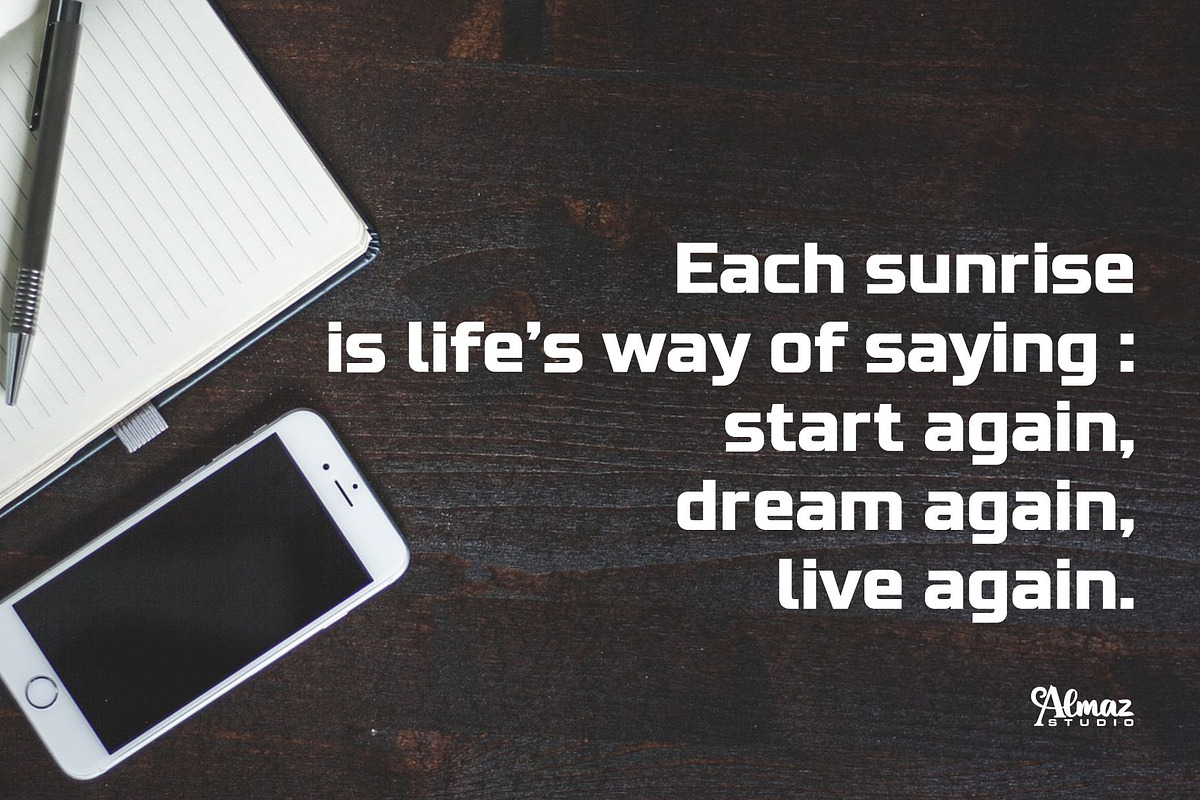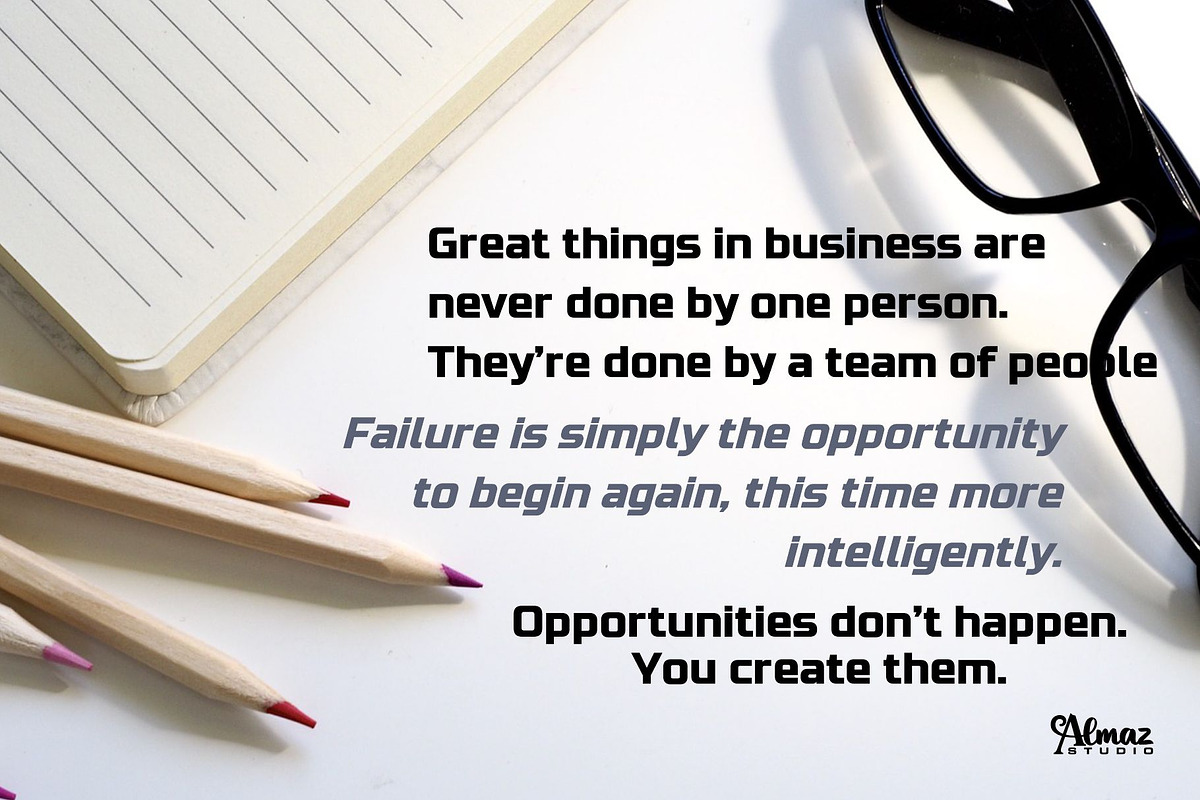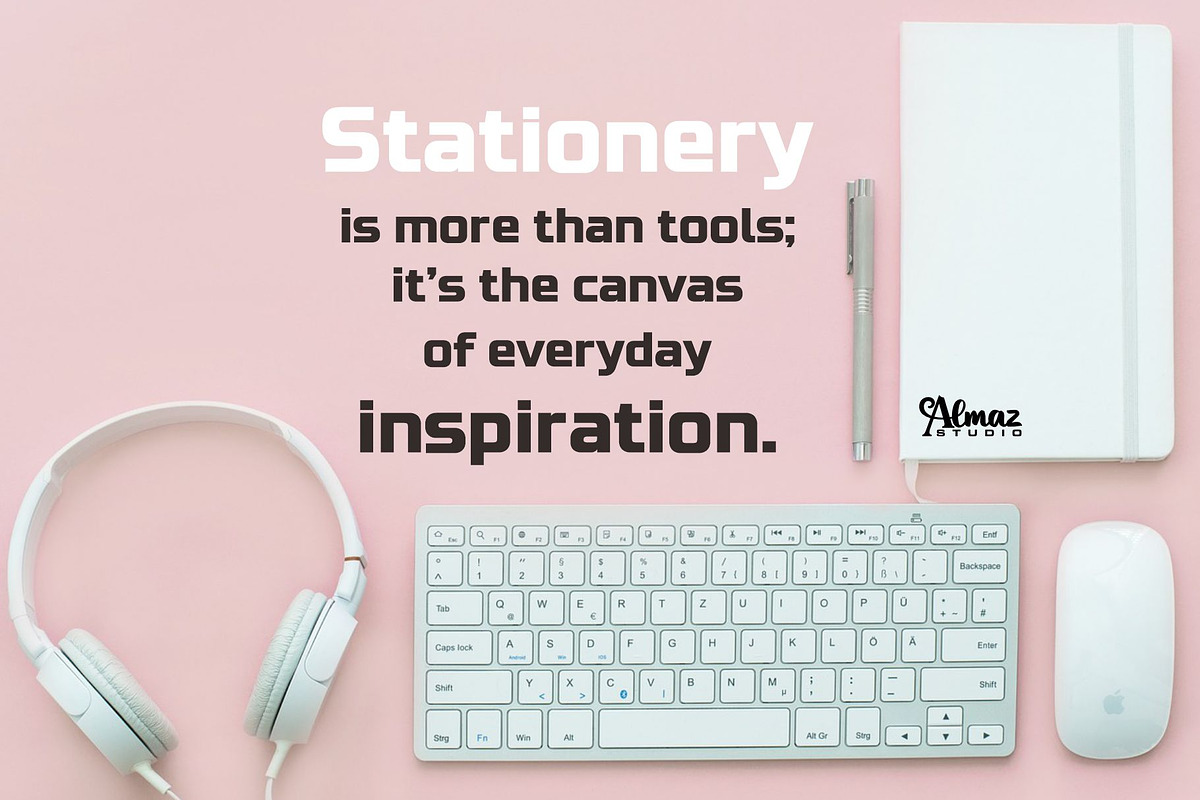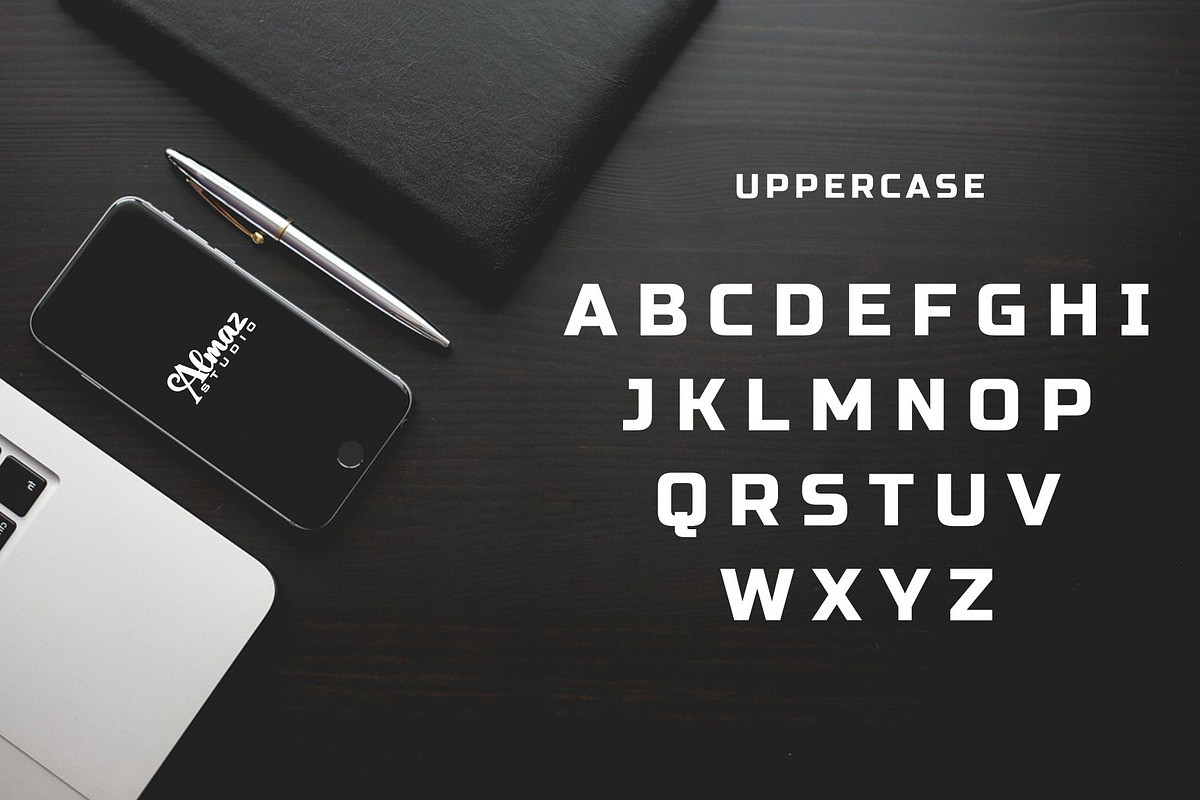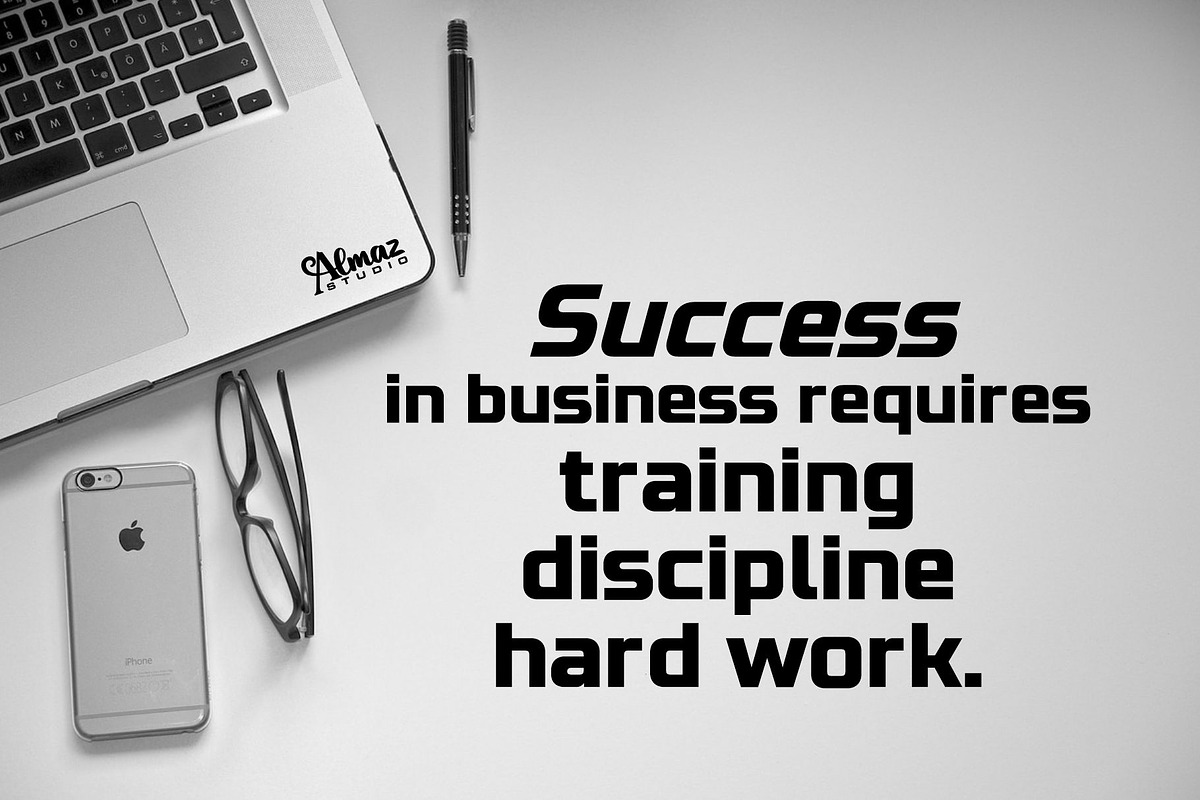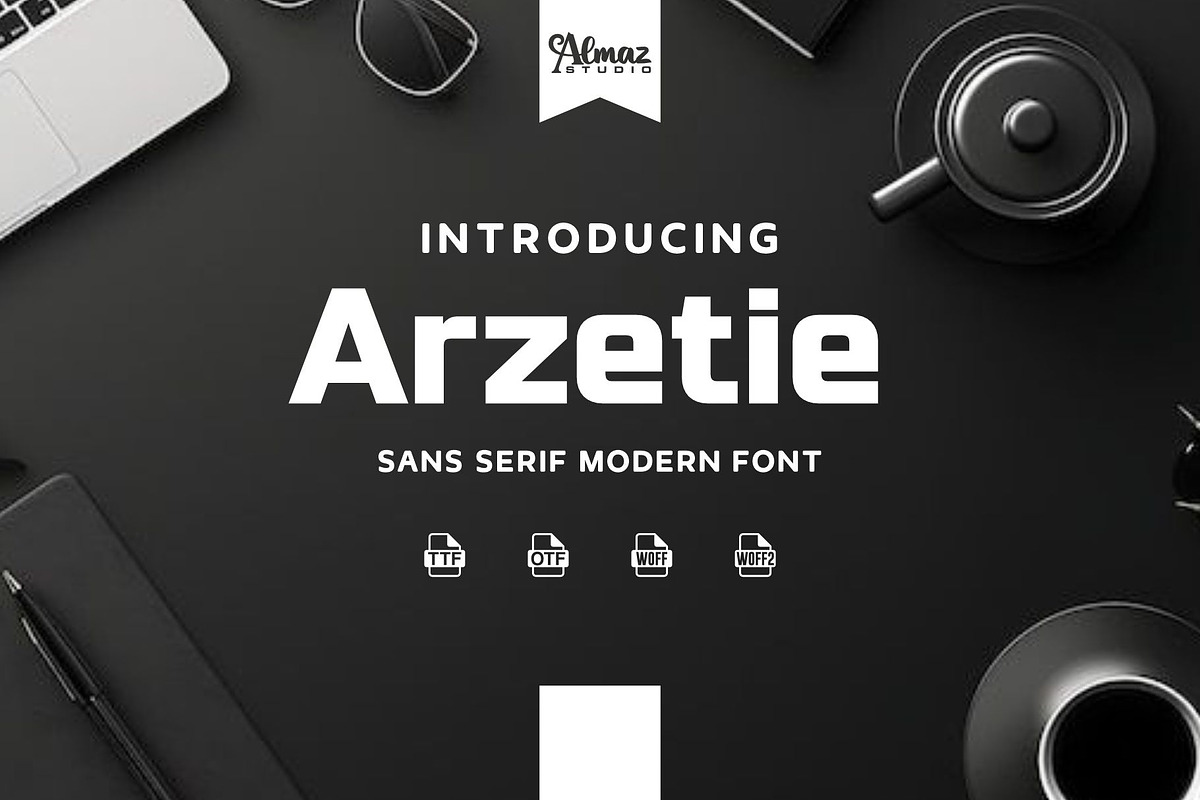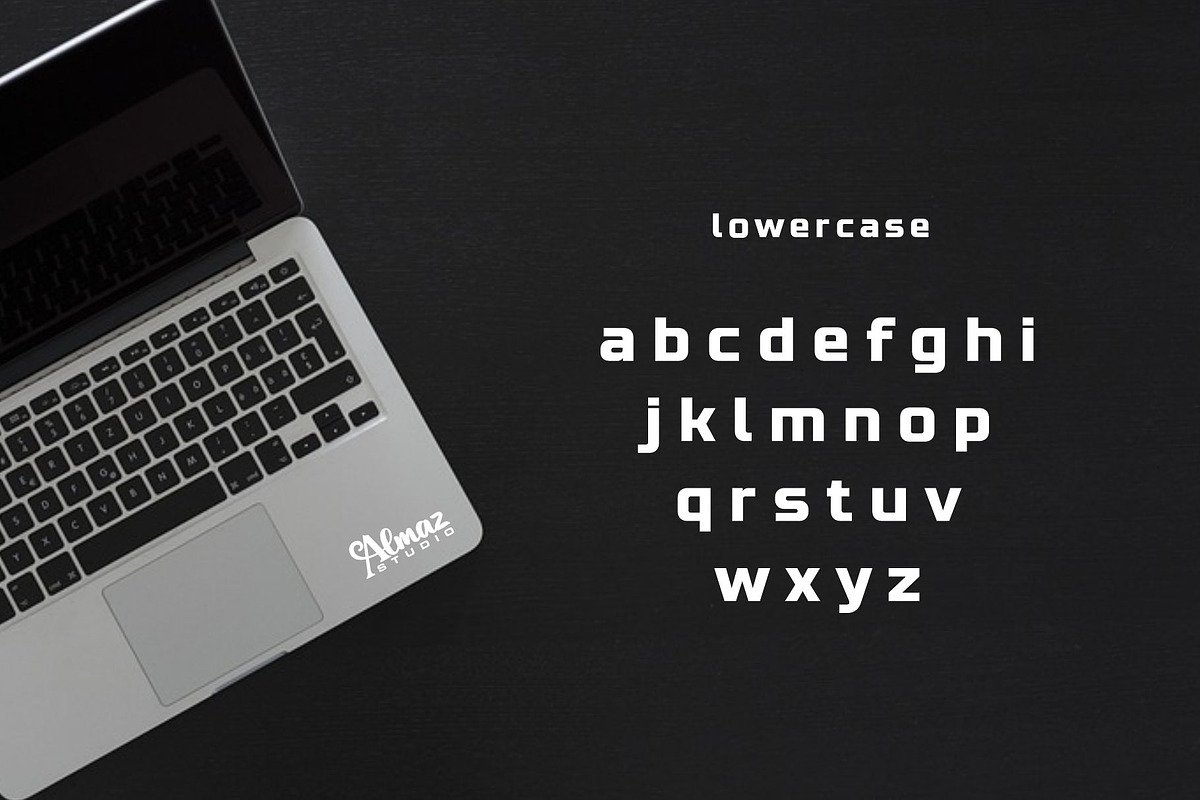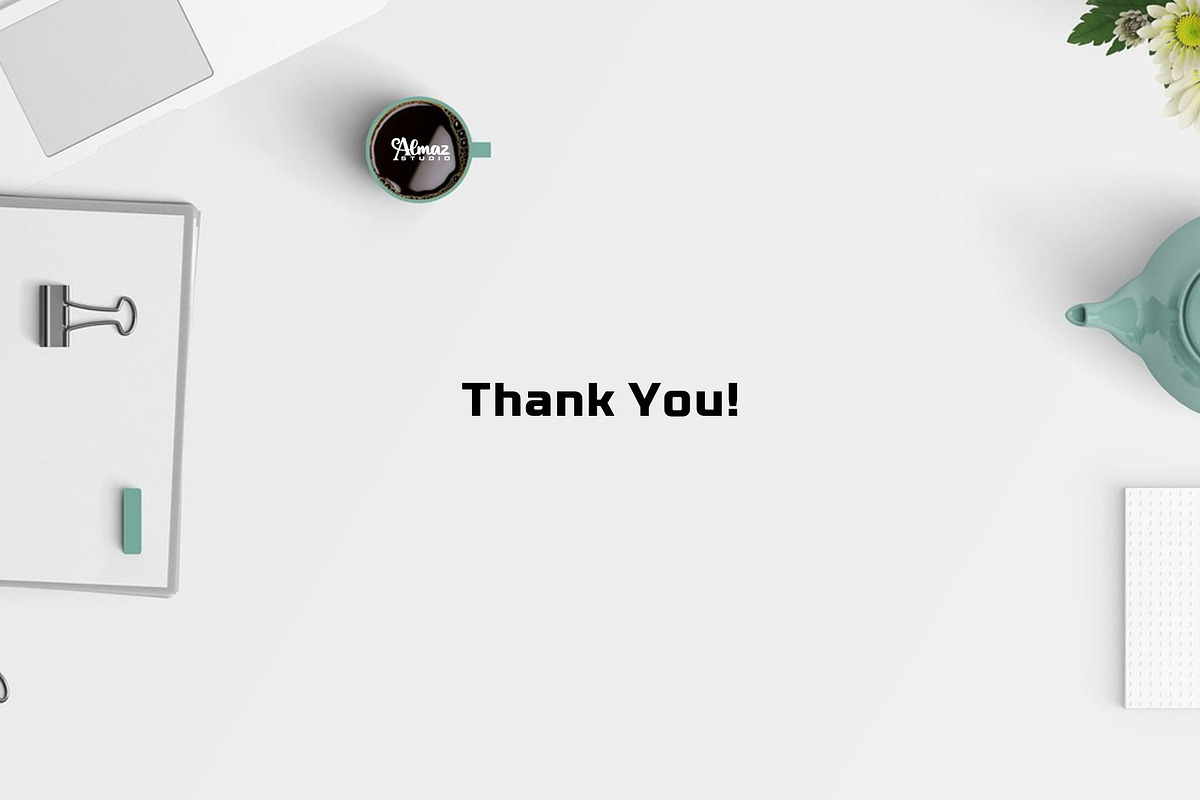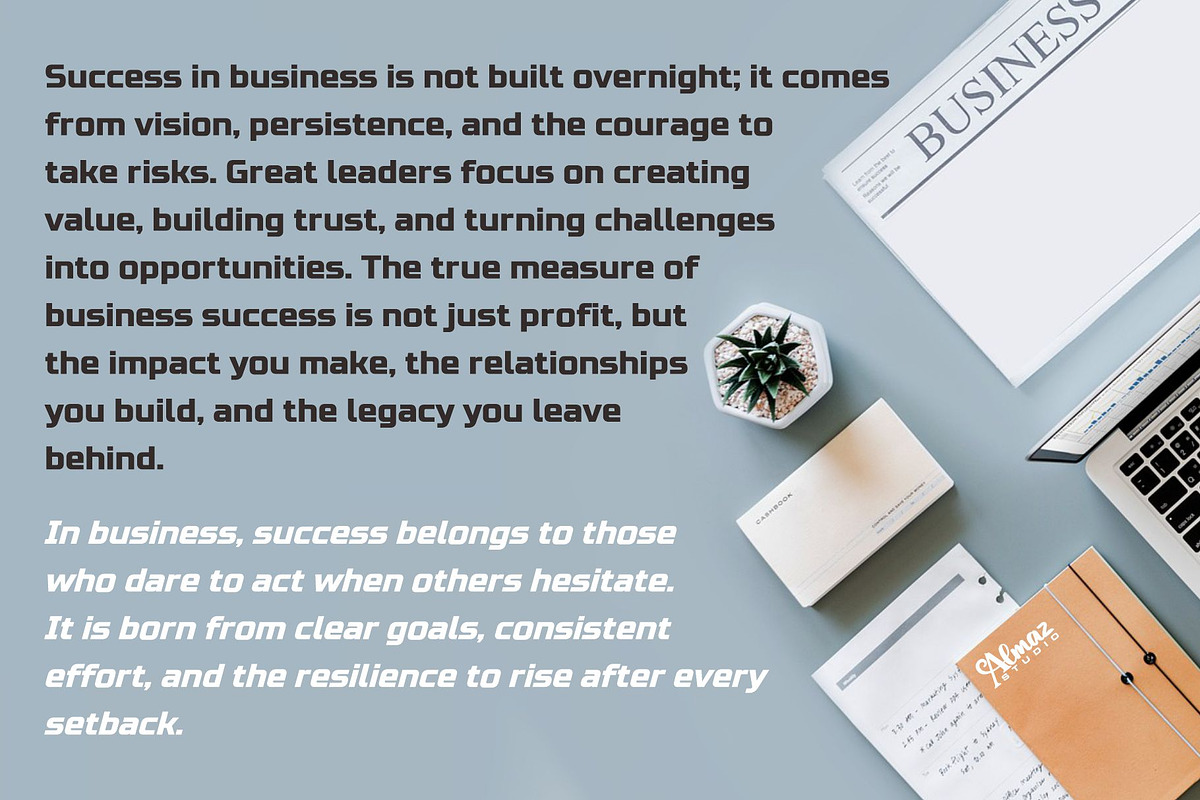
Arzetie
Arzetie is a modern sans serif font with a clean, friendly, and contemporary appearance. It features smooth curves, rounded terminals, and balanced proportions that create a soft yet professional look. The letterforms are designed for high readability while maintaining a stylish and modern character.
Arzetie works perfectly for branding, corporate identity, UI/UX design, websites, presentations, posters, packaging, and editorial layouts. Its minimalist design allows it to adapt easily to both digital and print media, making it a versatile choice for modern design projects.